6 Award-Winning Typefaces
As we gear up for Print’s Typography & Lettering Awards, we’re once again taking stock of our favorite winners from last year’s competition, which was judged by Dana Tanamachi and Dr. Shelley Gruendler. For the latest type takeover, here are six eye-catching faces, from the workhorses to the colorful and curious (click for higher-res).
Marco
Marco—TypeTogether, Prague; www.type-together.com/marco: Toshi Omagari (designer), TypeTogether (foundry). As judge Shelley Gruendler says, “Marco is an admirable example of a new approach to historically inspired type design that is still commercially viable. One instantly can see the Italian influence [yet also] imagine a deluge of applications. This typeface is detailed and clever, utilitarian and elegant, and a perfect example of the excellence that is possible in type design today.”
Frauen
Frauen—Sharp Type, Brooklyn, NY; www.sharptype.co: Lucas Sharp (art director/designer), Sharp Type (type foundry)
Eric Gill Series
Eric Gill Series—Monotype, Woburn, MA; www.monotype.com: Eric Gill, Steve Matteson, George Ryan, Terrance Weinzierl, Ben Jones (designers)
Neue Haas Unica
Neue Haas Unica—Monotype, Woburn, MA; www.monotype.com: Toshi Omagari & Team ’77 (designers)
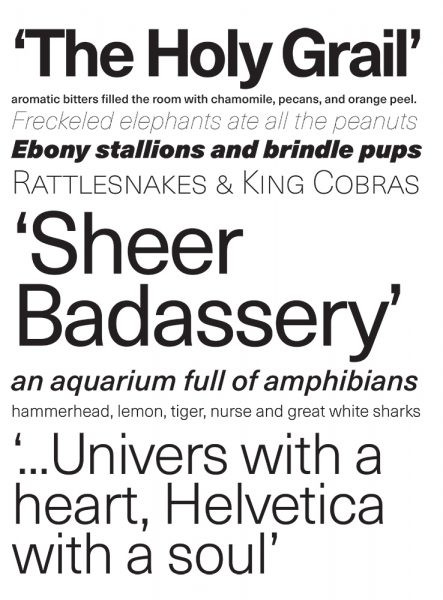
Essones
Essonnes Typeface—JTD, Lancaster, PA; www.jtdtype.com: James Todd (art director, designer, illustrator, photographer, copywriters, printer), JTD (type foundry)
Typewood
Typewood – The Declaration of Deconstructed Typography—Novo Typo, Amsterdam, Netherlands; www.novotypo.nl: Novo Typo – (typo)graphic designers from Amsterdam, The Netherlands (art directors/designers), Novo Typo (client)